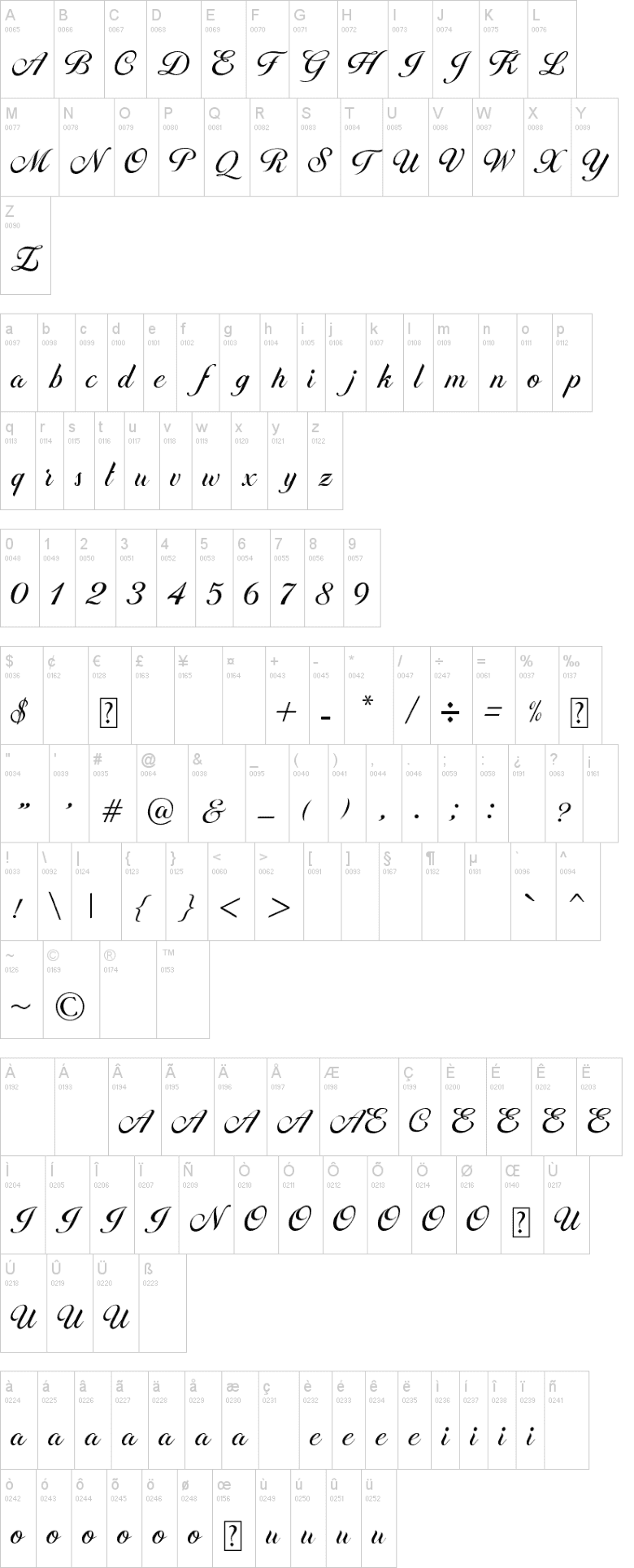
Brithney is a beautiful Calligraphy font that is developed by typelinestudio, which is available for free downloading and for personal use only. The free one has all the letters in both upper and lower case and only a few symbols as well.